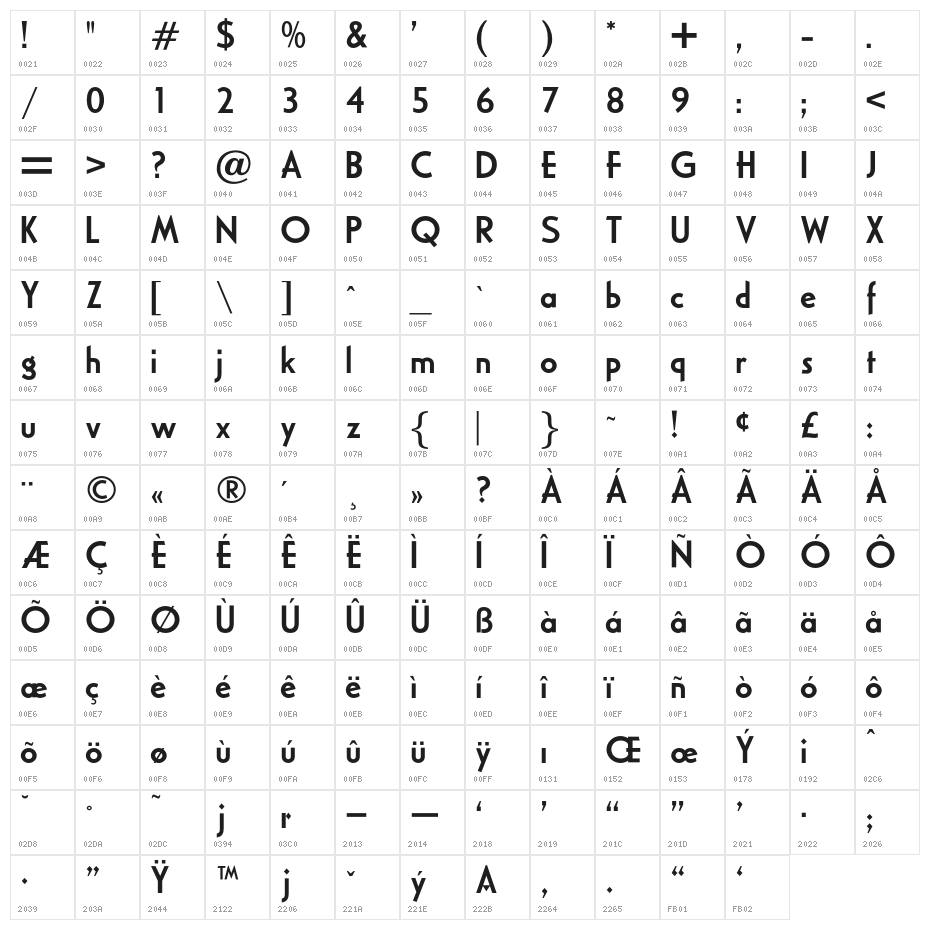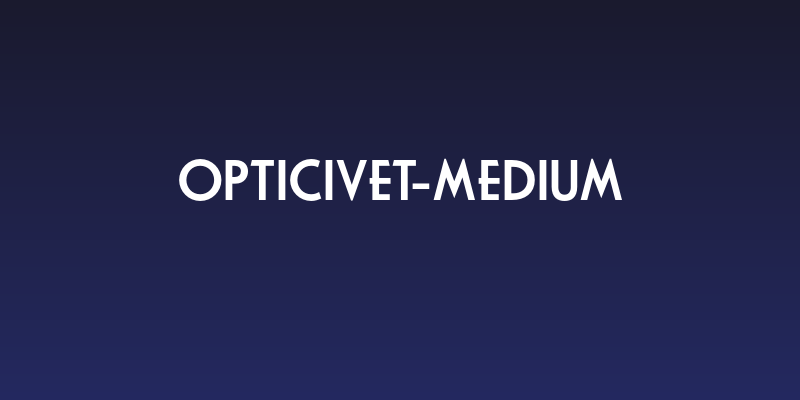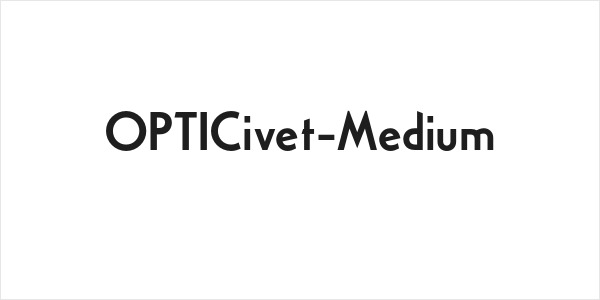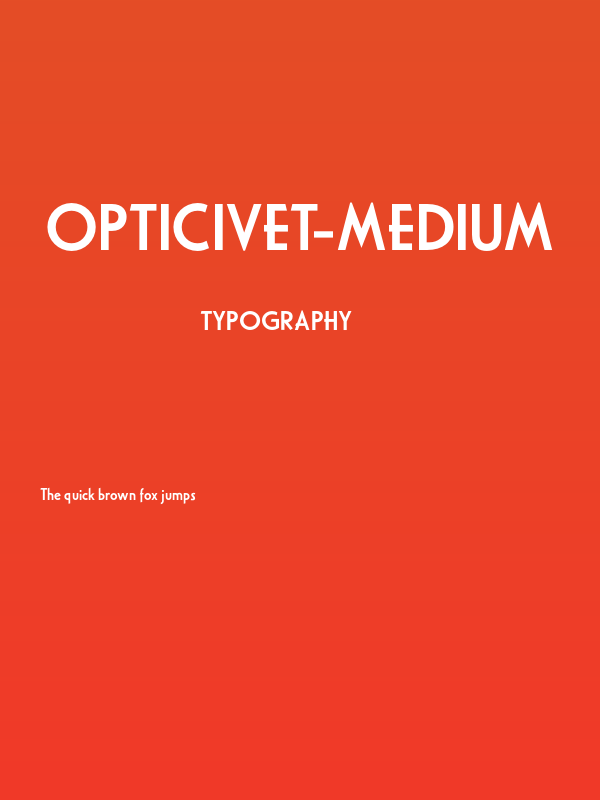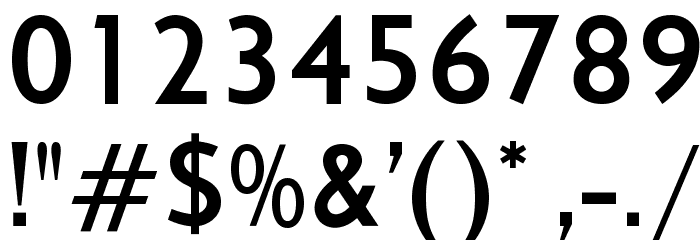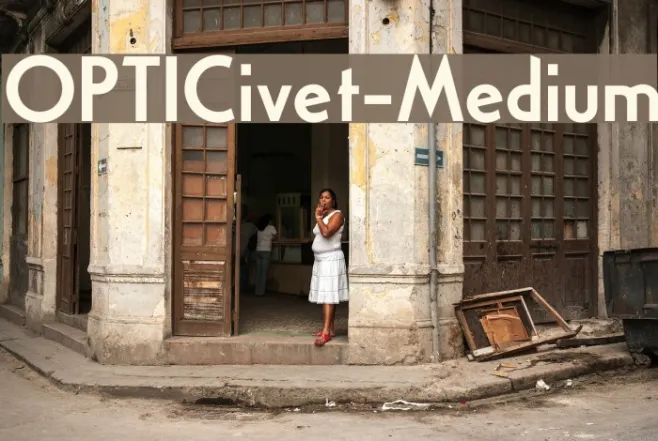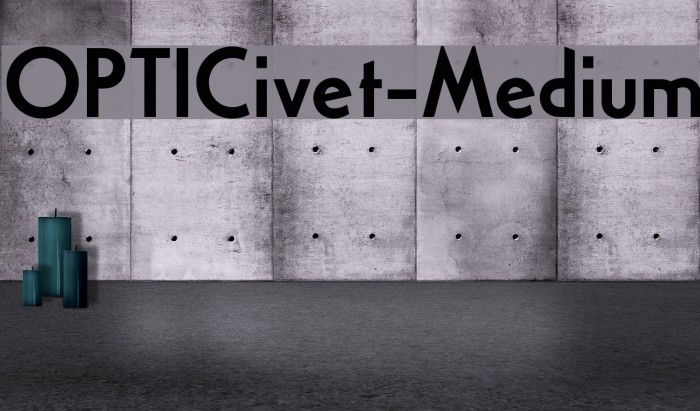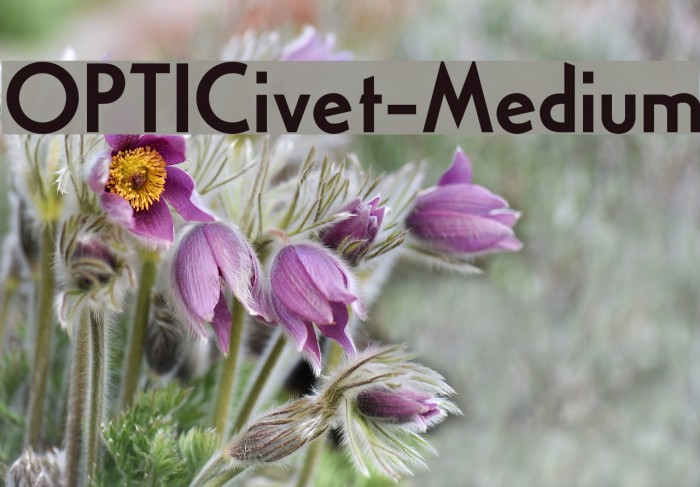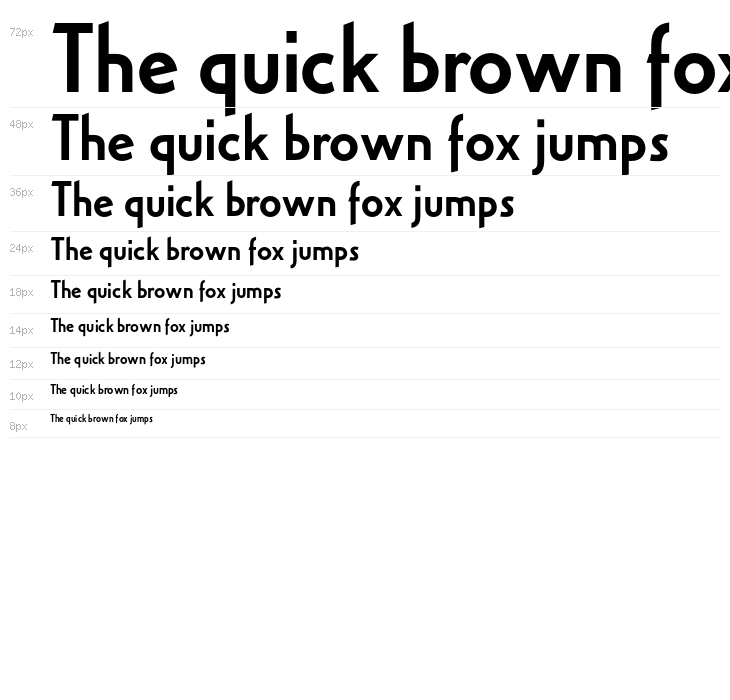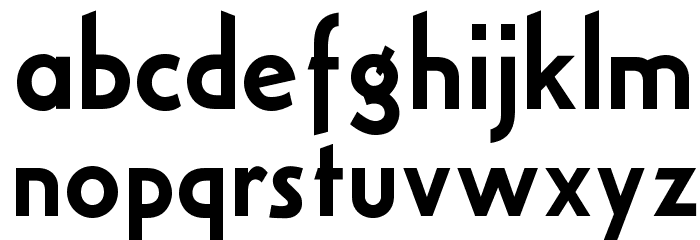
OPTICivet-Medium Font
OPTICivet-Medium Description
This typeface features a bold and geometric design with clean, sharp lines and a modern aesthetic. The uppercase letters are uniform in height, creating a cohesive look, while the lowercase letters maintain a consistent style with rounded edges and smooth curves. The numerals are clear and easy to read, matching the overall geometric theme. Special characters are distinct and well-integrated, ensuring versatility across various applications. The font's strong presence makes it suitable for impactful designs, while its clarity ensures readability.
| Proposed Projects | Ideal for branding, advertising, headlines, and digital media where a modern and bold statement is needed. |